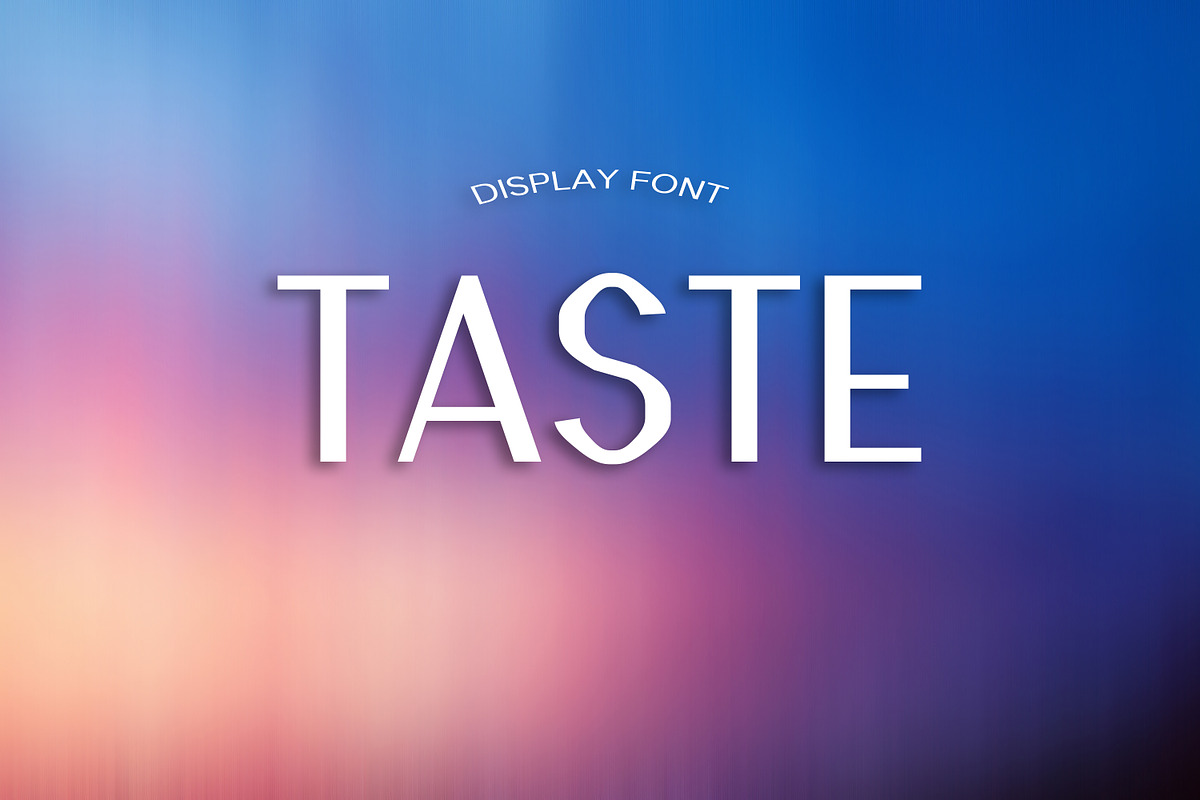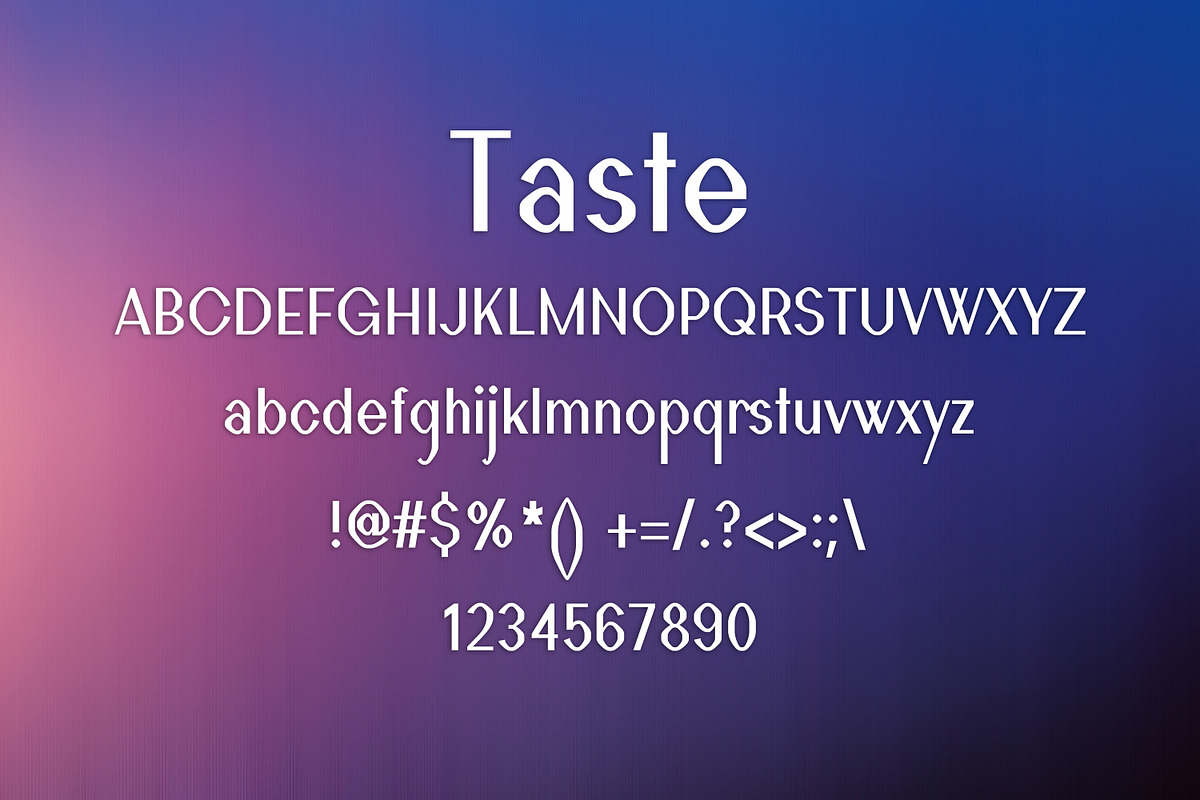
TASTE font
- Taste regular
Why TASTE font is worth a look
TASTE font by DmDesignsStoreArt fits naturally into Branding, posters, packaging, typography.